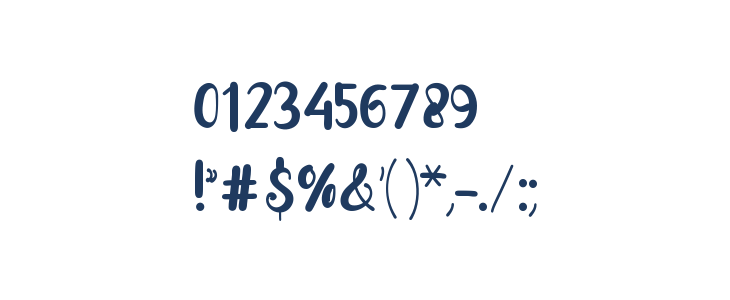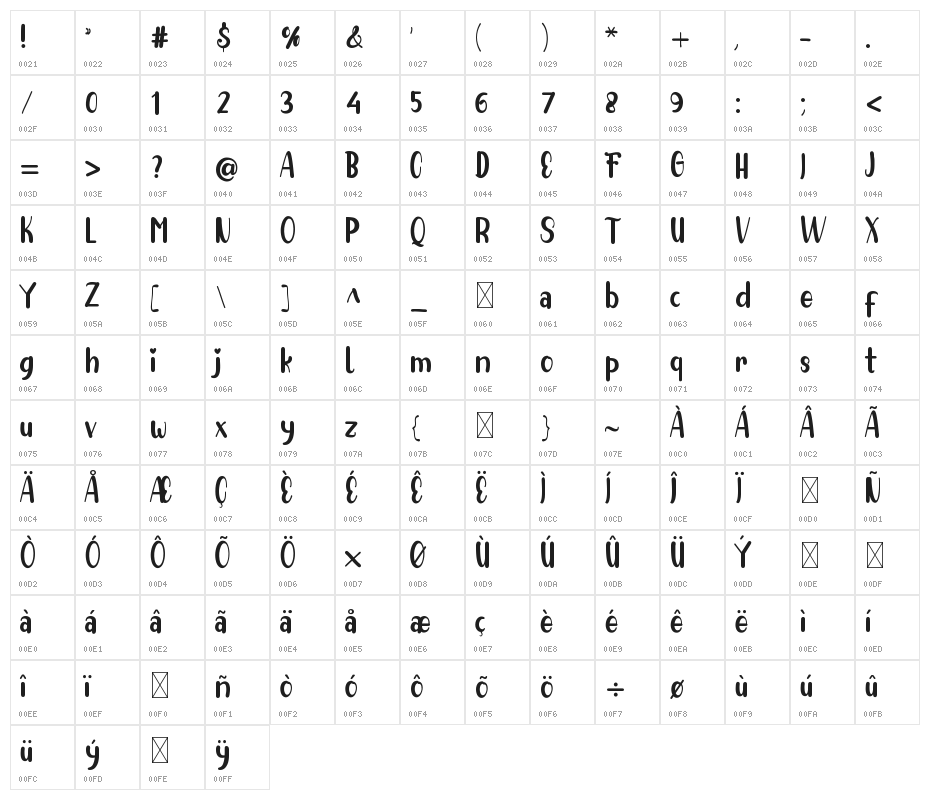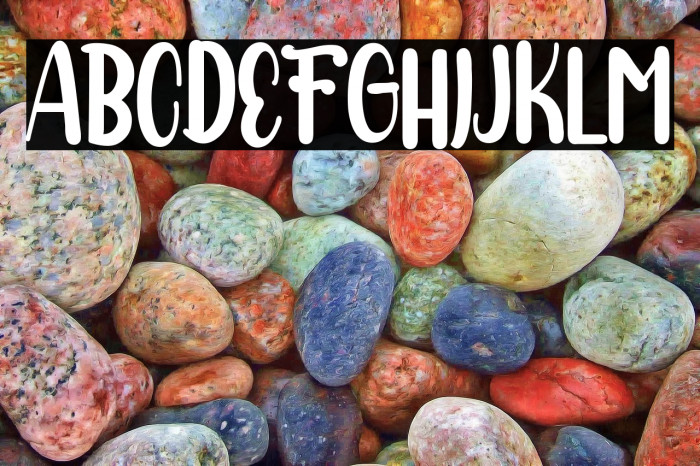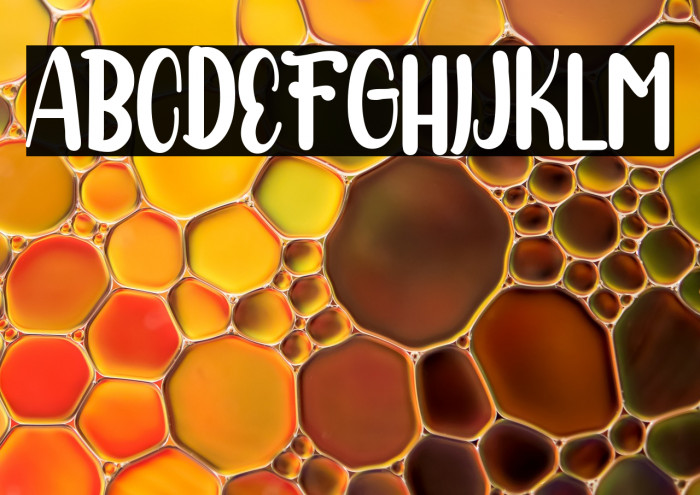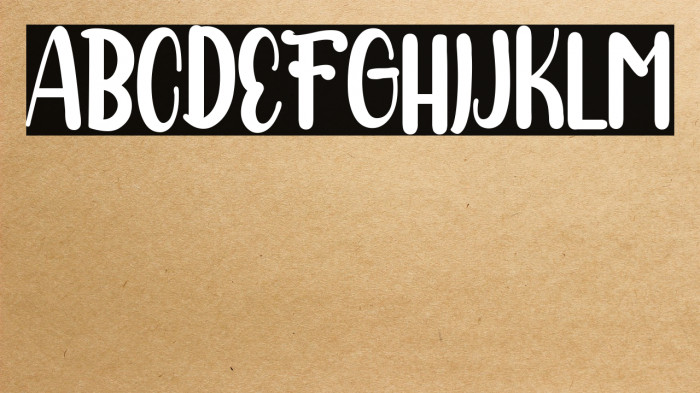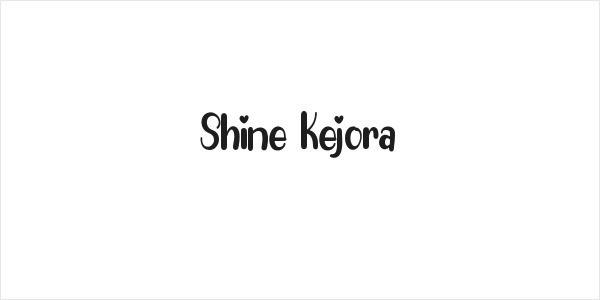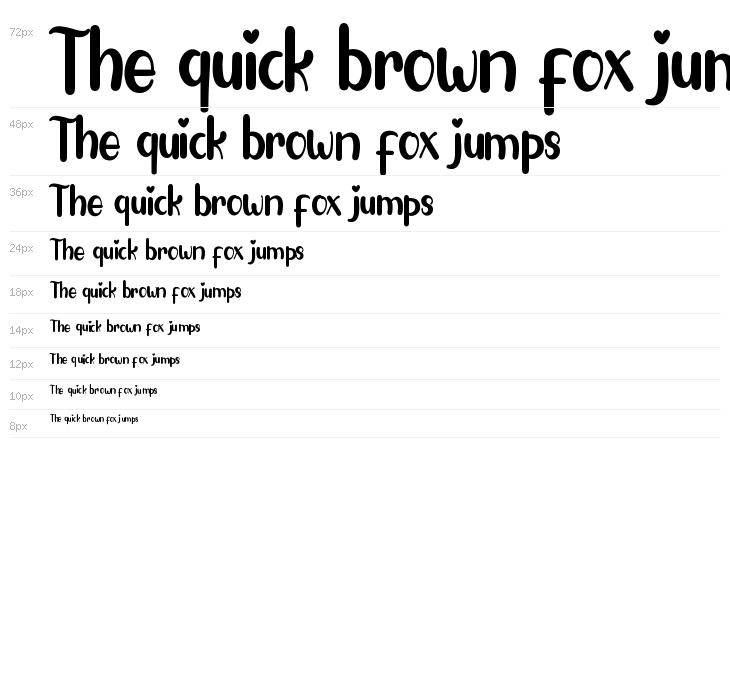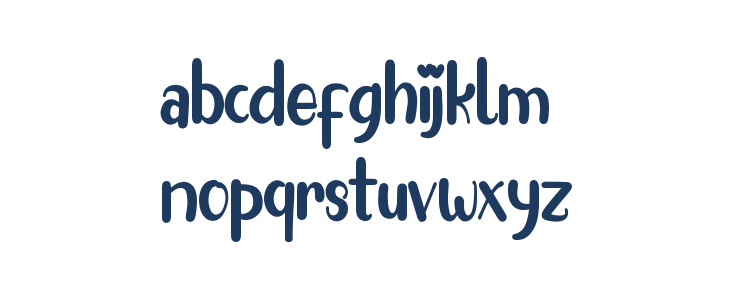
Shine Kejora Font
Shine Kejora Description
This font features a playful and whimsical style with a handwritten appearance. The uppercase letters are bold and rounded, with some characters having unique flourishes that add a touch of personality. The lowercase letters maintain a consistent style, with smooth curves and a friendly demeanor. The numerals are clear and easy to read, matching the overall playful theme. Special characters are creatively designed, complementing the font's lively aesthetic. This font is ideal for projects that require a fun and approachable look.
| Proposed Projects | Ideal for children's books, greeting cards, playful branding, and social media graphics. |